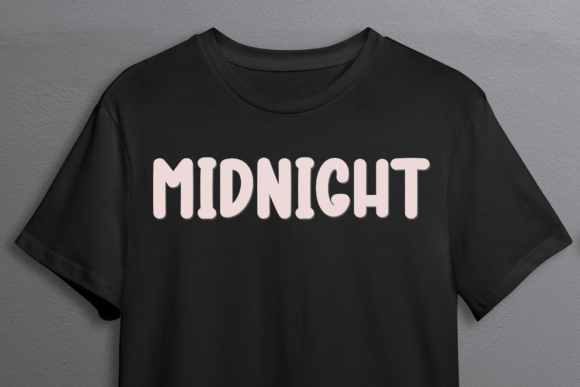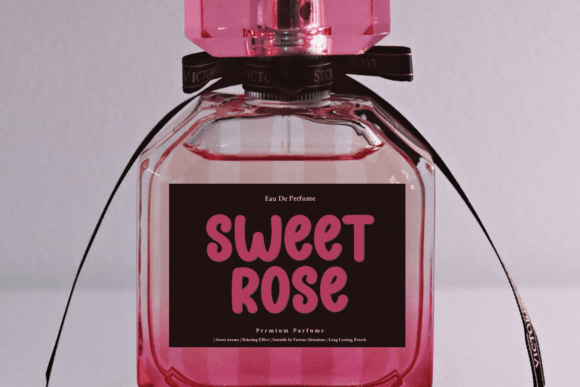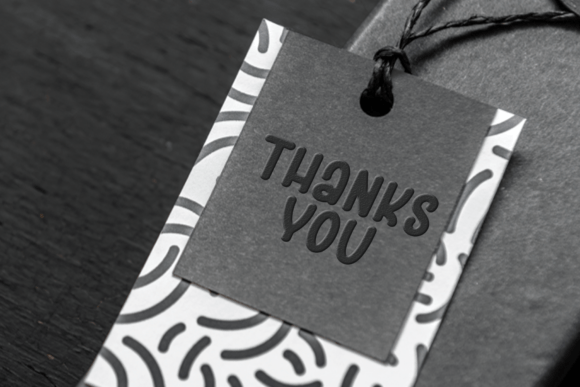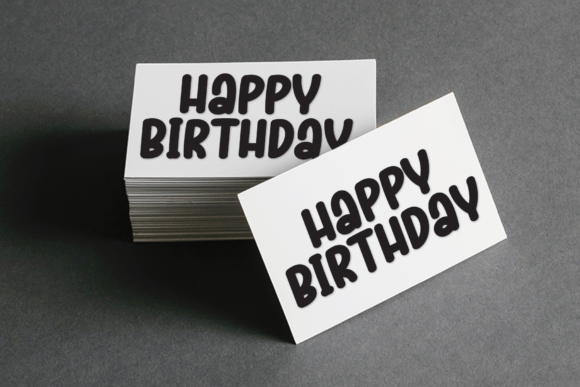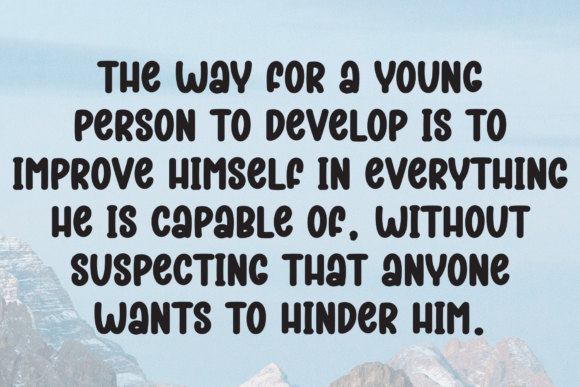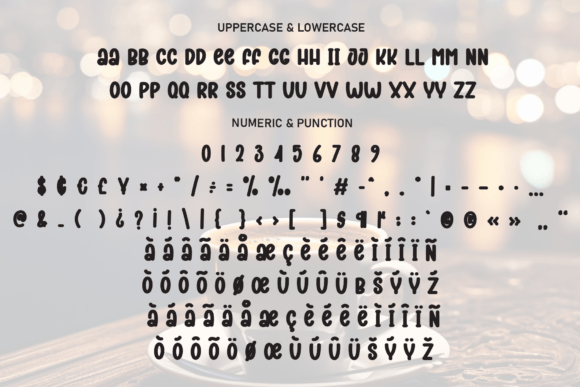
Coffee Night Font: The Perfect Blend of Sweetness and Warmth
Are you looking for a font that can add a touch of warmth and sweetness to your design projects? Look no further than the Coffee Night Font! This charming, handcrafted display font is the epitome of joy and friendliness, making it perfect for a wide range of creative endeavors. In this article, we’ll take a closer look at the Coffee Night Font, its unique characteristics, and how you can use it to bring a playful touch to your designs.
A Delightful Doodlesque Design
The Coffee Night Font is a true masterpiece of font design. With its delightful doodlesque characteristics, this font infuses joyful vibes into every text. Its fun and friendly personality makes every letter shine with a burst of effervescence, making it perfect for designers and crafters who want to add a touch of whimsy to their work. Whether you’re creating wedding invitations, greeting cards, or any other design project, the Coffee Night Font is sure to bring a smile to your audience’s faces.
Perfect for Personalizing Wedding Invitations and Greeting Cards
One of the most popular uses for the Coffee Night Font is in wedding invitations and greeting cards. The font’s sweet and playful personality makes it perfect for couples who want to add a touch of whimsy to their special day. Imagine sending out wedding invitations that feature a beautiful, hand-drawn design, complete with doodles and flourishes that reflect the couple’s personalities. The Coffee Night Font makes it easy to create custom wedding invitations that are truly one-of-a-kind.
Similarly, the Coffee Night Font is perfect for greeting cards. Whether you’re creating birthday cards, holiday cards, or just a simple thank-you note, this font adds a touch of warmth and personality to your message. The font’s playful doodlesque design makes it perfect for kids’ birthday cards, while its more elegant characteristics make it suitable for more formal occasions.
Bringing a Playful Touch to Any Design Project
The Coffee Night Font is more than just a font – it’s a design tool that can bring a playful touch to any project. Whether you’re creating a logo, a brochure, or a website, this font can add a touch of whimsy and personality to your design. The font’s versatility makes it perfect for a wide range of design projects, from children’s products to adult-oriented designs.
One of the best things about the Coffee Night Font is its ability to pair well with other fonts. Whether you’re using a bold, sans-serif font or a elegant script font, the Coffee Night Font can add a touch of playfulness to your design. The font’s unique characteristics also make it perfect for use in combination with images, illustrations, and other design elements.
A Combination of Likability and Versatility
The Coffee Night Font is truly a unique design tool that offers a combination of likability and versatility. Its sweet and playful personality makes it perfect for designers and crafters who want to add a touch of warmth and personality to their work. The font’s versatility also makes it suitable for a wide range of design projects, from wedding invitations to website designs.
Key Features of the Coffee Night Font
- Handcrafted display font with a delightful doodlesque design
- Perfect for wedding invitations, greeting cards, and other design projects
- Fun and friendly personality that adds a touch of warmth and personality to your designs
- Versatile font that pairs well with other fonts and design elements
- Combination of likability and versatility makes it perfect for a wide range of design projects
In conclusion, the Coffee Night Font is a charming, handcrafted display font that’s perfect for designers and crafters who want to add a touch of sweetness and warmth to their designs. With its delightful doodlesque characteristics and playful personality, this font is sure to bring a smile to your audience’s faces. Whether you’re creating wedding invitations, greeting cards, or any other design project, the Coffee Night Font is a must-have design tool. So why wait? Download the Coffee Night Font today and start creating your own unique designs!